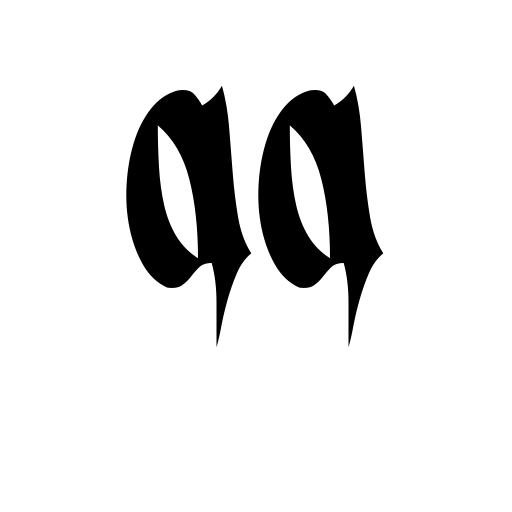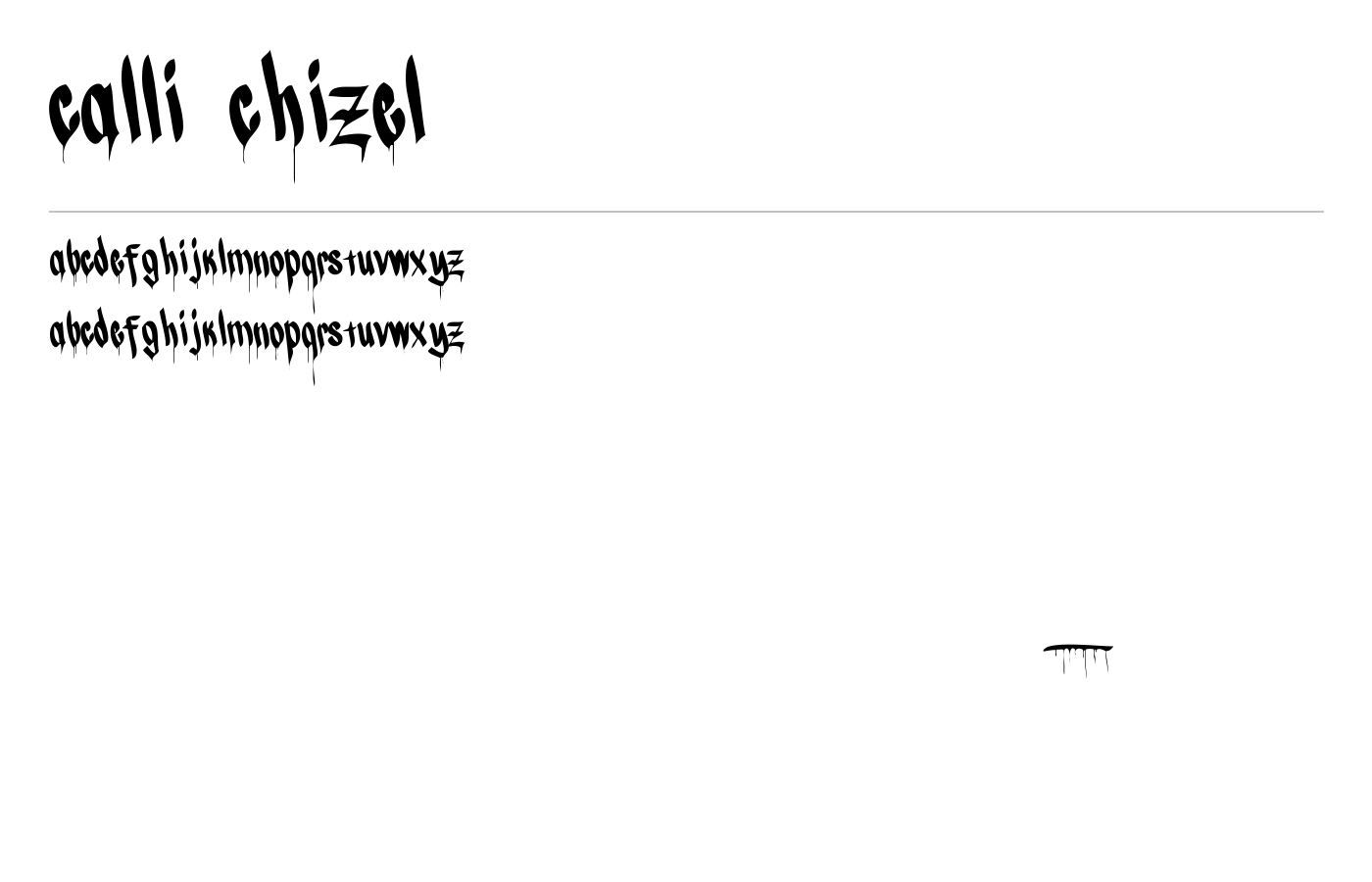
CALLI CHIZEL is a distinctive display font with a spooky, dripping effect that gives it a dramatic and eerie personality. Its tall, narrow letterforms feature sharp, irregular edges that evoke a sense of horror or mystery, making it perfect for Halloween-themed designs, horror movie posters, or any project seeking a bold, unsettling aesthetic. This font works best in headlines or logos where its unique style can stand out and create a strong visual impact.
CALLI CHIZEL Font
About CALLI CHIZEL Font